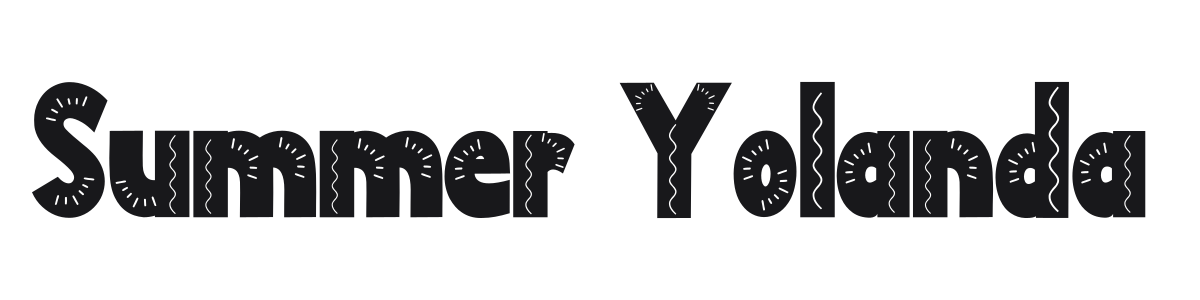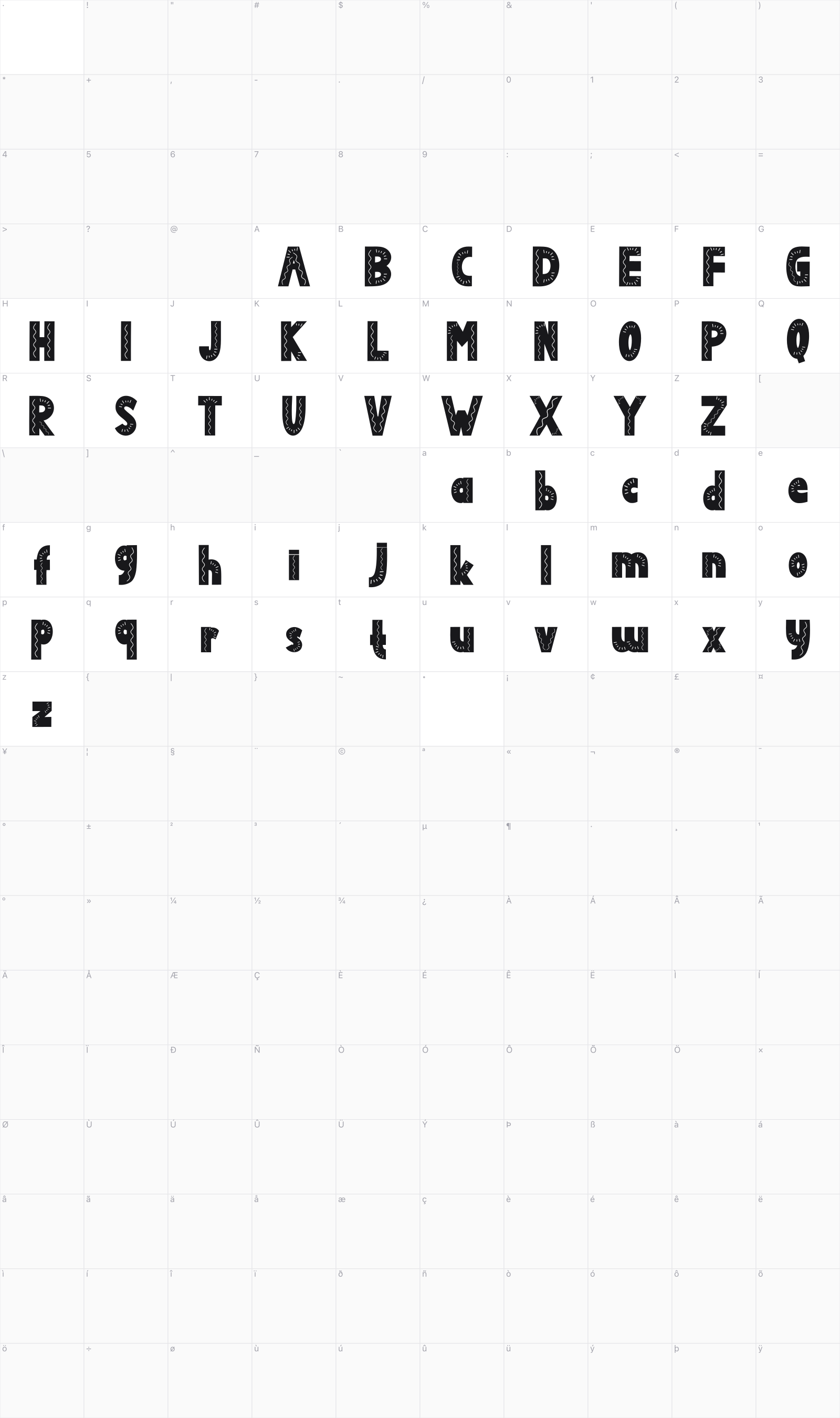
Summer Yolanda
Summer Yolanda is a chunky bold display font packed with hand-drawn decorative details inside its strokes and counters. Wavy lines, radiating dashes, and stitch-like marks give each character a festive, handcrafted feel. It reads warm and celebratory at large sizes, fitting for seasonal branding, signage, and editorial headlines.